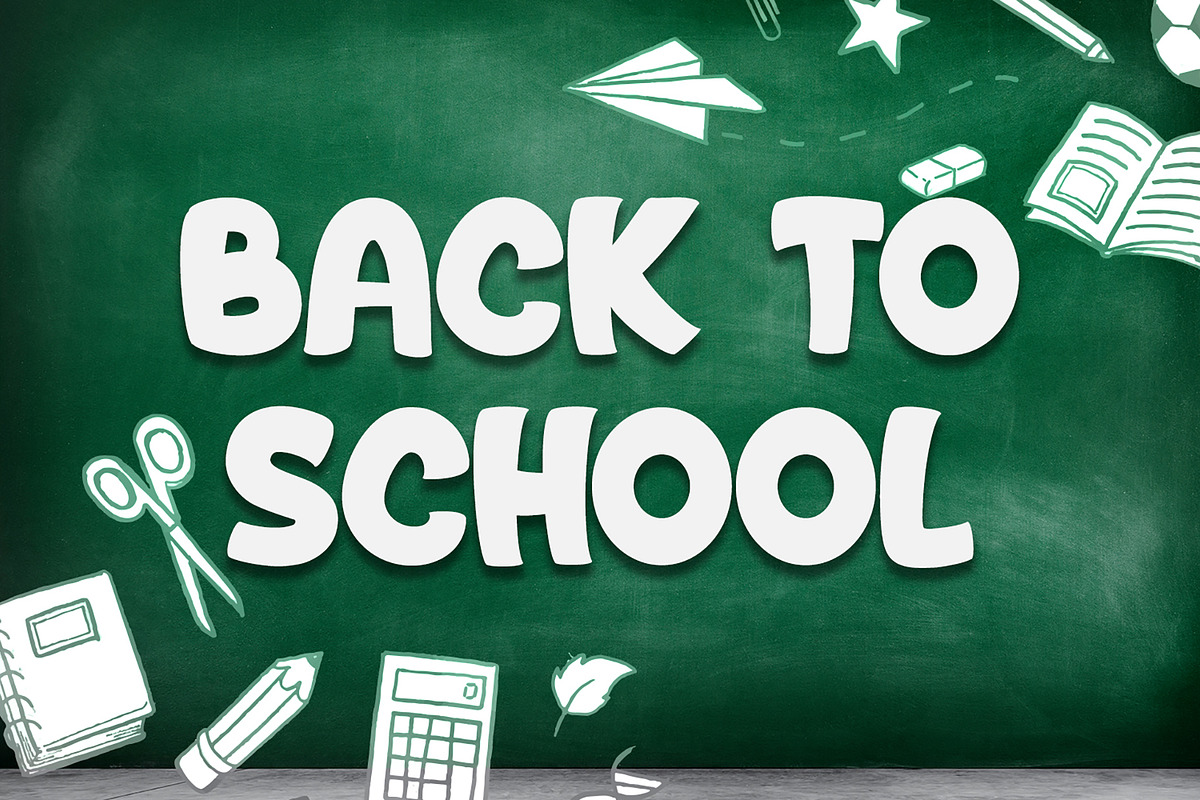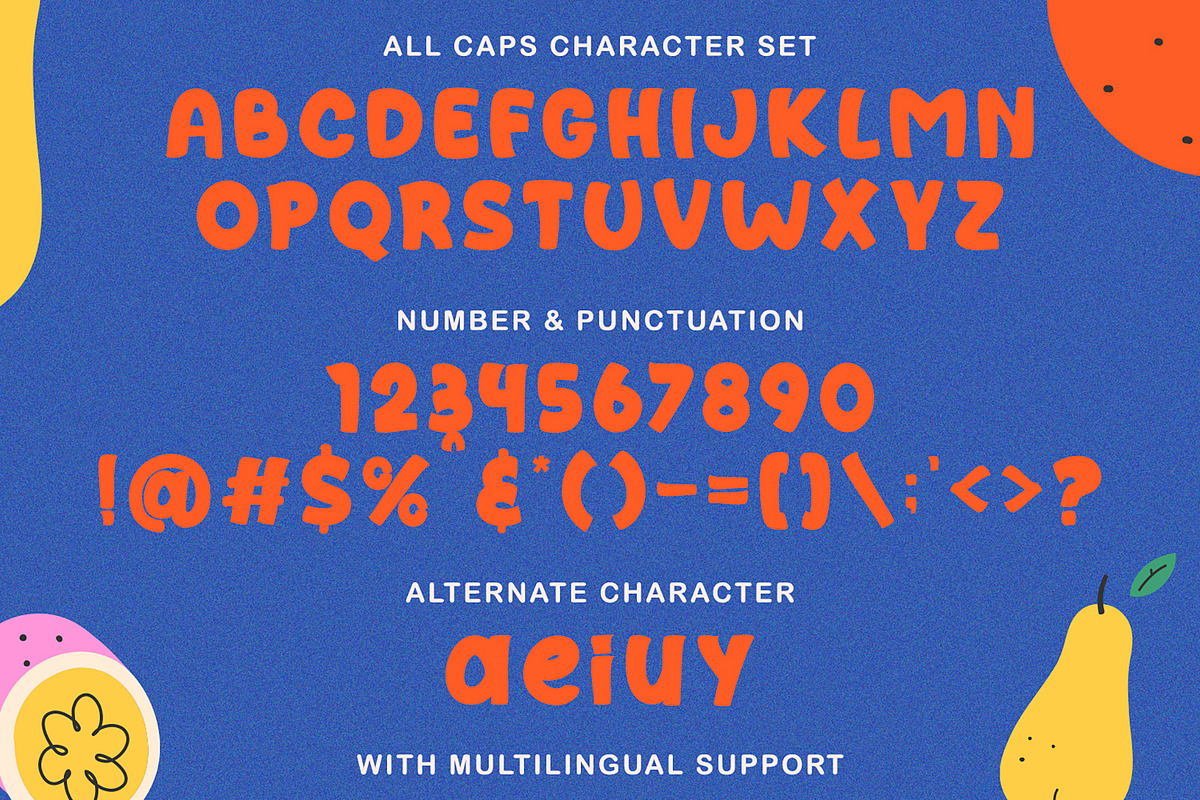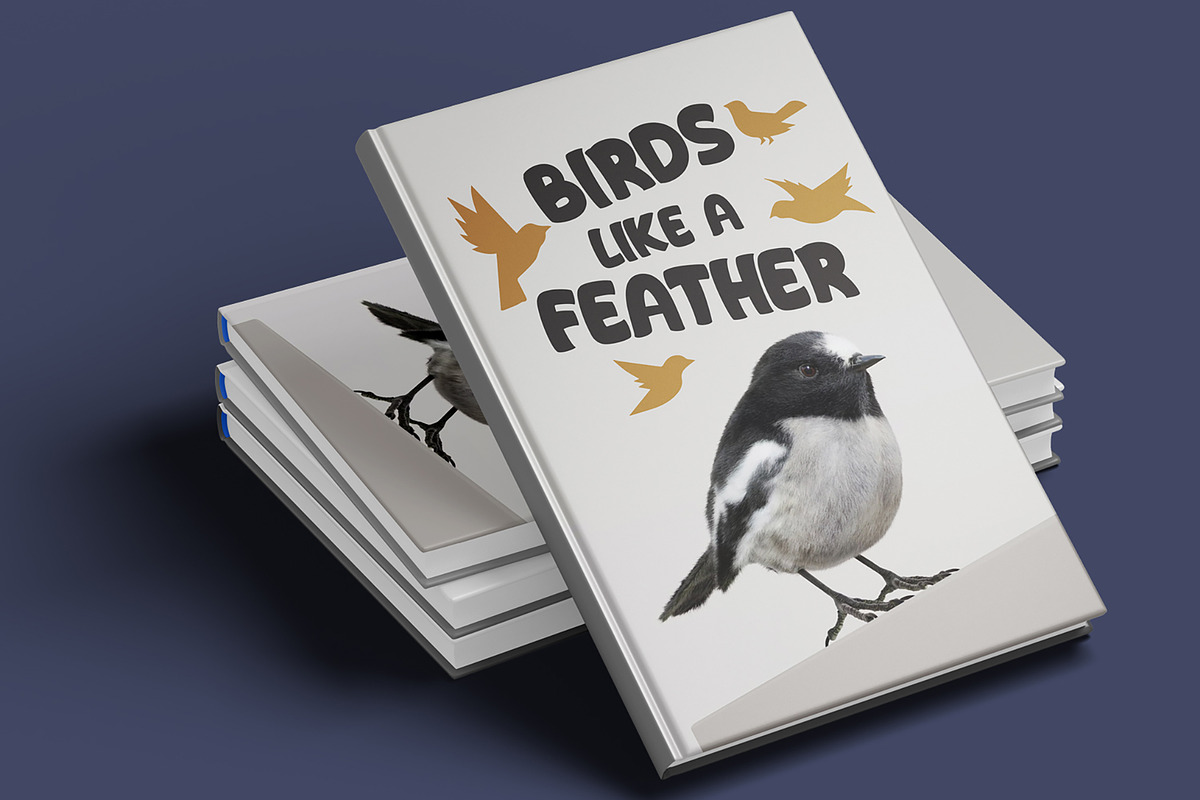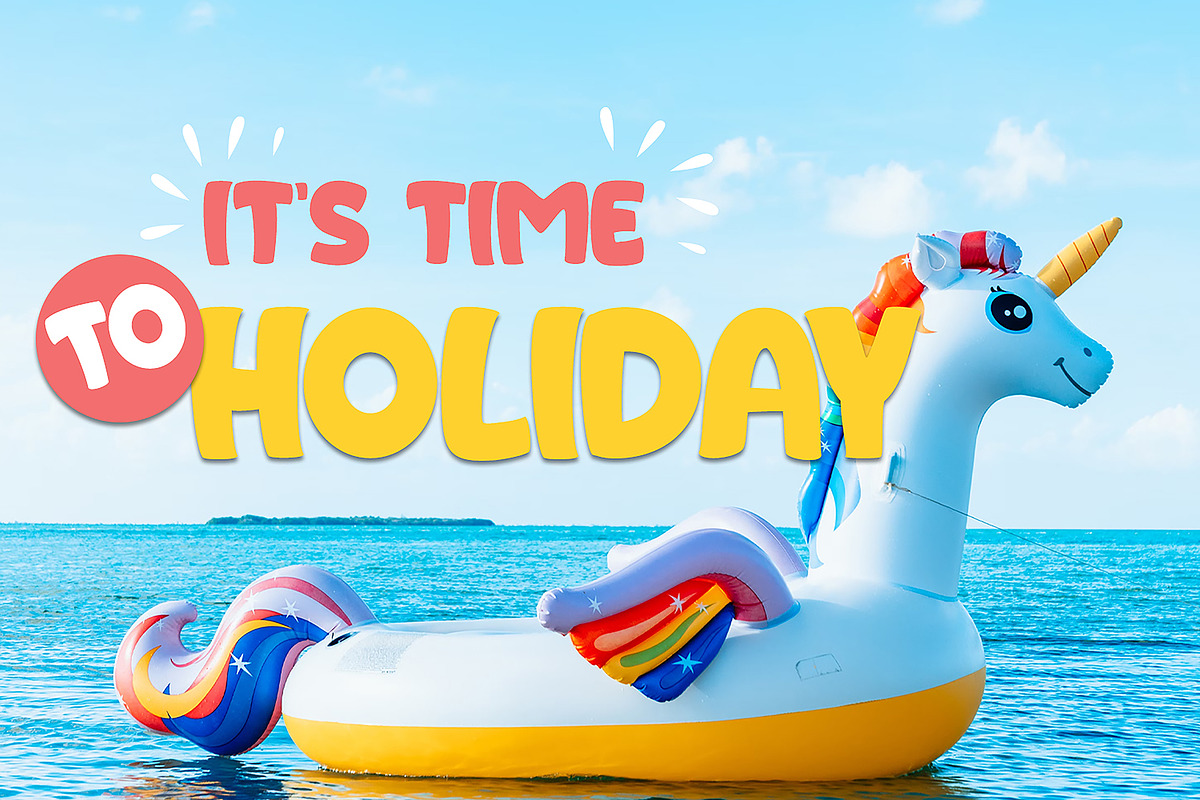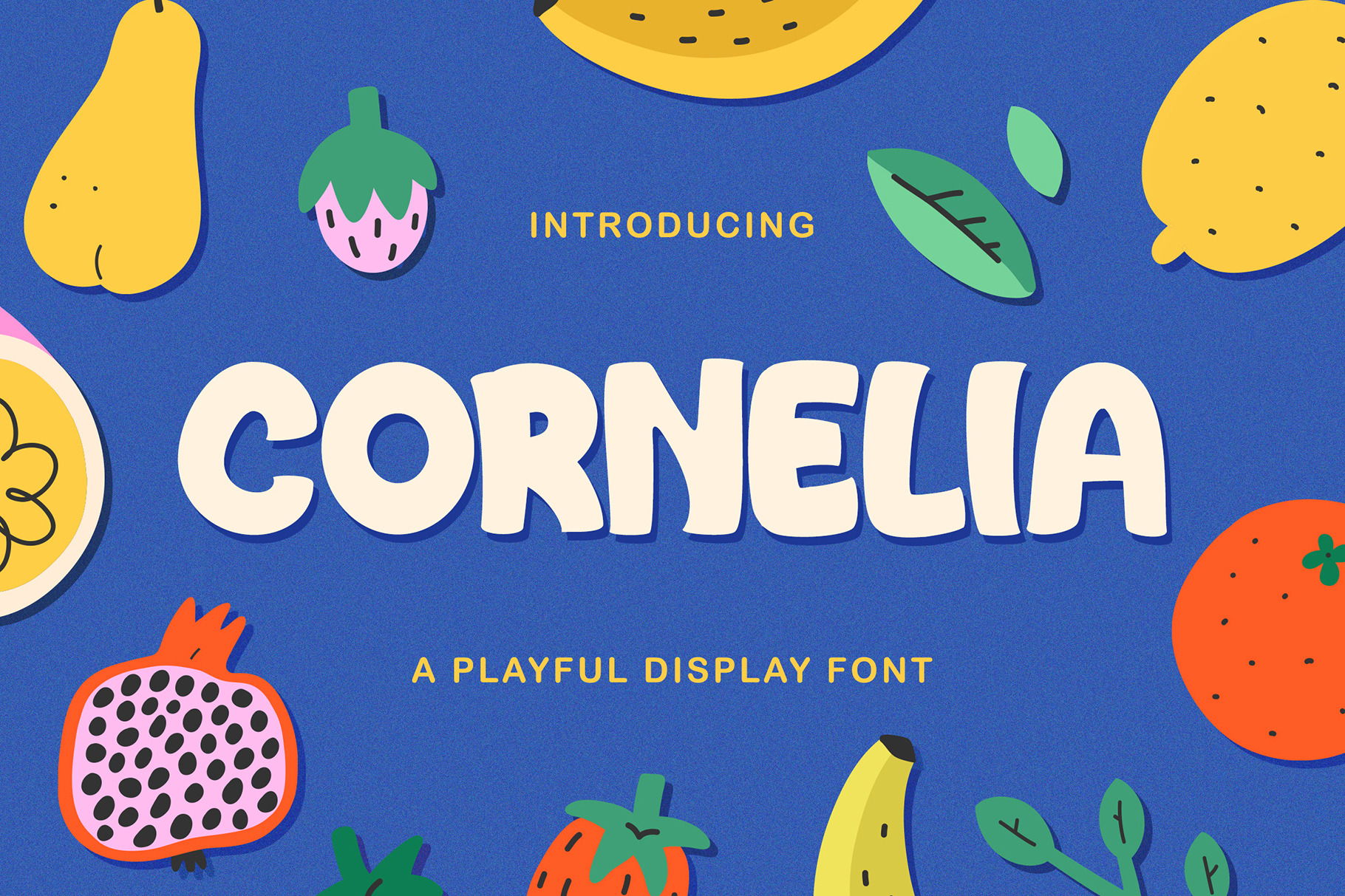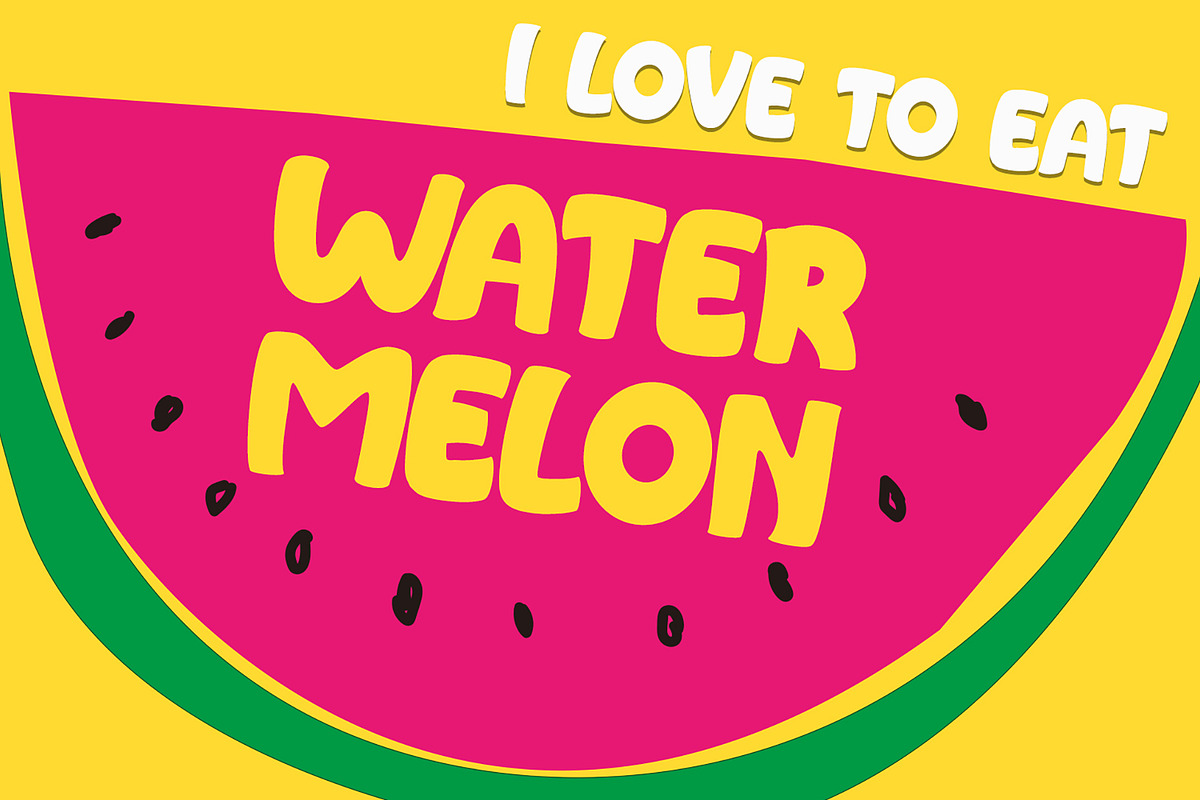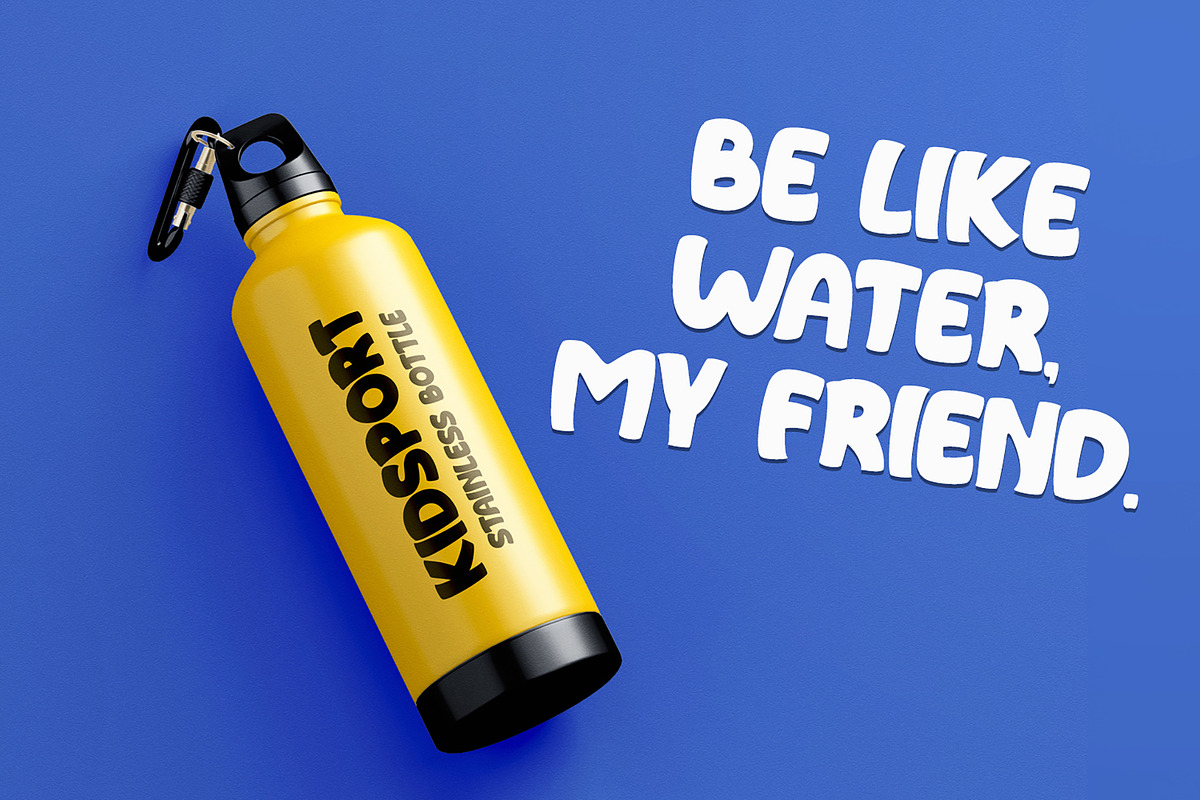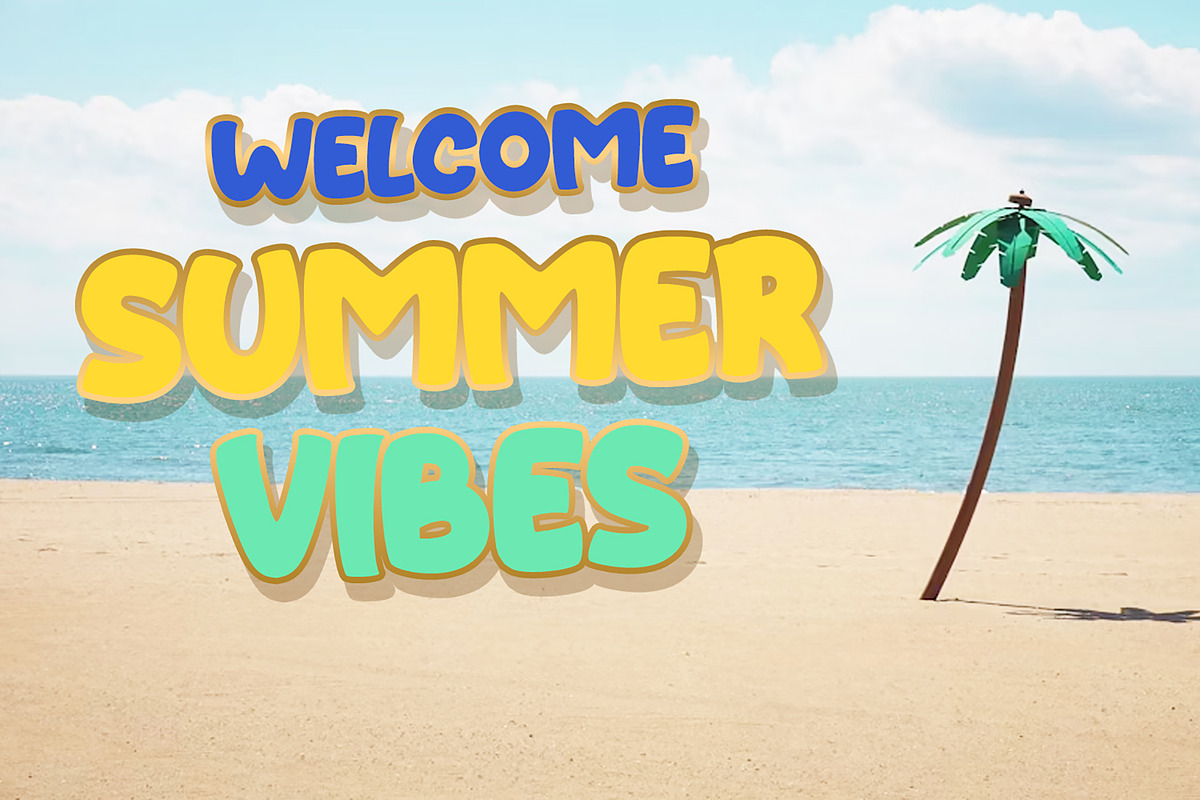
Cornelia - Cute Playful Display Font
Cute and Playful Display Font
Perfect for Logotype, brand logo, apparel design, clothing, fashion, creative industry, signature, headline/title on poster, brochure, packaging, wedding invitation, quotes, magazine, social media etc.